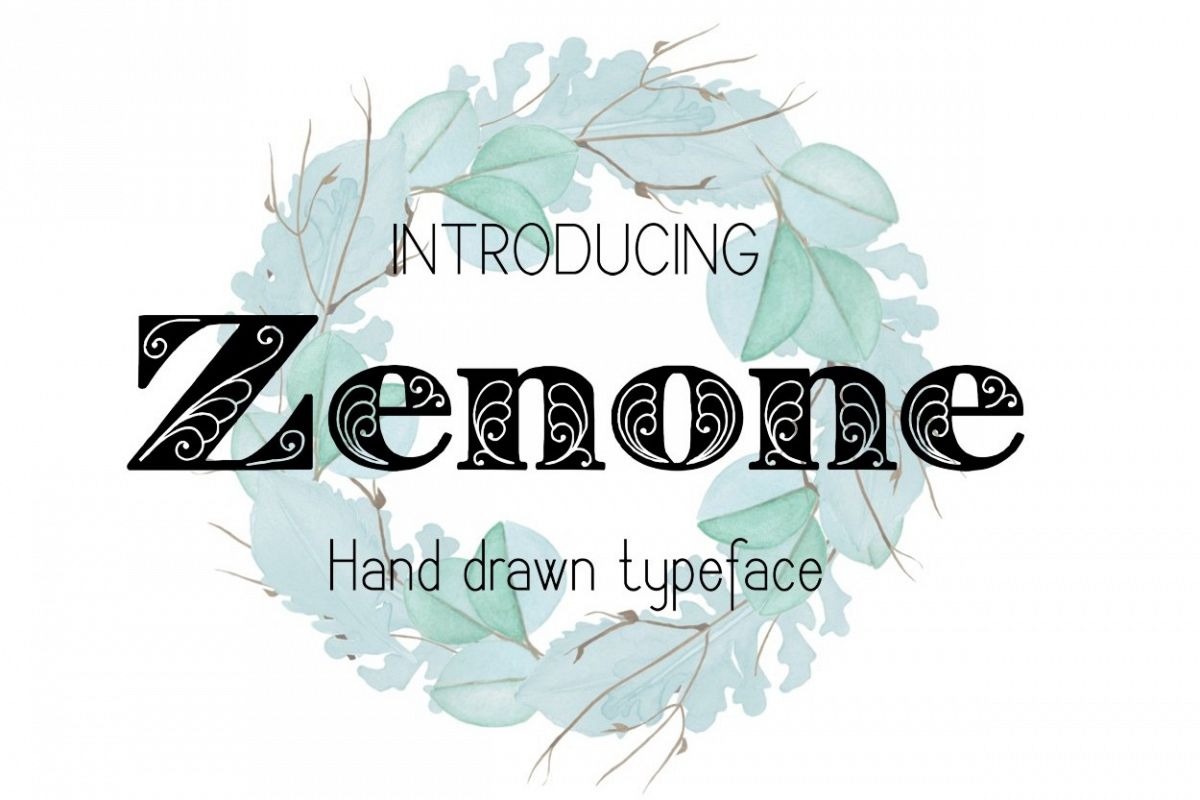
Zenone font
Zenone
Introducing Zenone hand drawn decorative font.
This font is great for book covers, titling, signage, poster, flyers, calendars, headlines, businnes cards and for many craft projects.
Zenone font